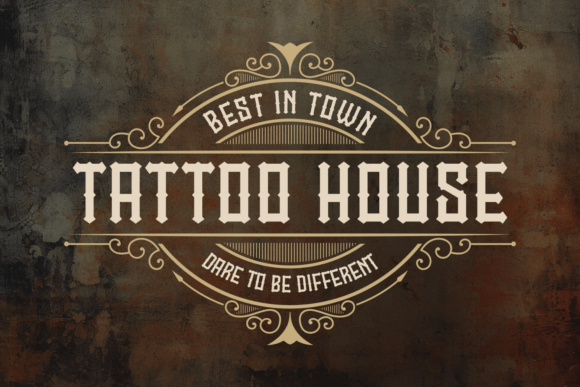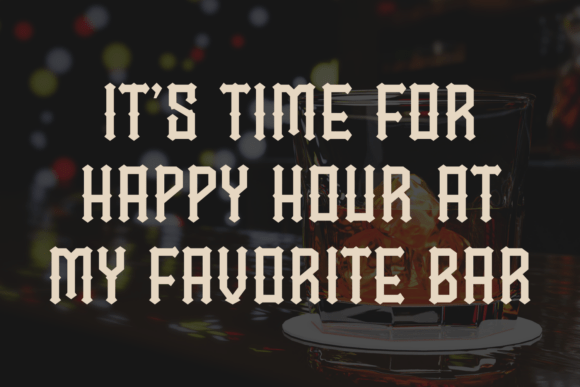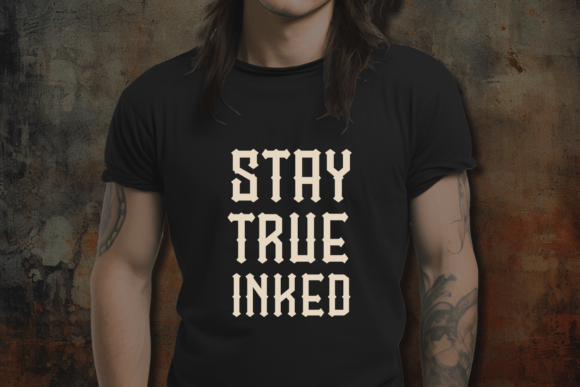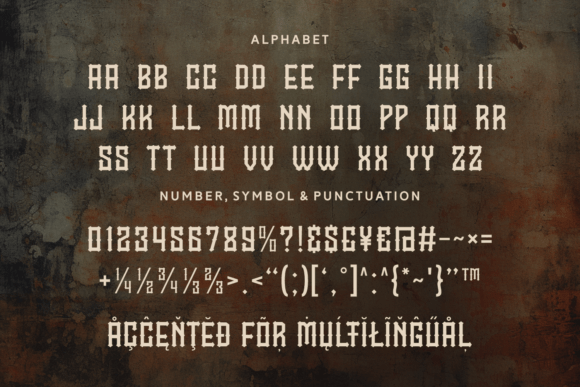
Unleash the Power of Barfun Font: A Bold and Edgy Blackletter Typeface
Are you looking for a font that exudes a sense of rebellion, heritage, and rugged personality? Look no further than Barfun Font, a bold and angular blackletter typeface that combines traditional Gothic typography with a modern edge. In this article, we’ll dive into the world of Barfun Font, exploring its unique features, uses, and benefits for designers and crafters.
A Brief Introduction to Barfun Font
Barfun Font is a striking blackletter font that draws inspiration from traditional Gothic typography, but with a fresh and modern twist. Its rigid structure, pointed edges, and sharp geometric lines give it a commanding presence that’s perfect for making a statement. Whether you’re designing vintage labels, beer branding, tattoo designs, bar signage, or rock band merchandise, Barfun Font is the perfect choice for adding a touch of attitude and heritage to your work.
Key Features of Barfun Font
- Bold and Angular Design: Barfun Font boasts a bold and angular design that’s sure to grab attention. Its sharp lines and pointed edges give it a rugged and edgy feel that’s perfect for designs that require a strong personality.
- Traditional Gothic Inspiration: Barfun Font draws inspiration from traditional Gothic typography, but with a modern edge. This blend of old and new gives it a unique and distinctive look that’s both timeless and contemporary.
- Mix of Historical Flair and Attitude: Barfun Font combines historical flair with a punch of attitude, making it perfect for designs that require a sense of rebellion and heritage.
Uses of Barfun Font
Barfun Font is a versatile typeface that can be used in a variety of design projects, including:
- Vintage Labels: Add a touch of nostalgia and authenticity to your vintage labels with Barfun Font. Its bold and angular design makes it perfect for creating eye-catching labels that stand out.
- Beer Branding: Barfun Font is a great choice for beer branding, as it evokes a sense of tradition and heritage. Its rugged and edgy feel also makes it perfect for craft beer labels and packaging.
- Tattoo Designs: Barfun Font is a popular choice for tattoo designs, as its bold and angular lines make it perfect for creating striking and memorable tattoos.
- Bar Signage: Add a touch of personality to your bar signage with Barfun Font. Its commanding presence and rugged feel make it perfect for creating eye-catching signs that reflect the atmosphere of your bar.
- Rock Band Merchandise: Barfun Font is a great choice for rock band merchandise, as its bold and edgy design makes it perfect for creating striking and memorable merchandise that reflects the band’s personality.
Benefits of Using Barfun Font
So why choose Barfun Font for your design projects? Here are just a few benefits of using this versatile typeface:
- Strong and Authentic Personality: Barfun Font gives your designs a strong, authentic, and rugged personality that’s sure to grab attention.
- Timeless Feel: Barfun Font has a timeless feel that’s both classic and contemporary. Its blend of traditional Gothic typography and modern edge makes it perfect for designs that require a sense of heritage and rebellion.
- Versatility: Barfun Font is a versatile typeface that can be used in a variety of design projects, from vintage labels to rock band merchandise.
Tips for Using Barfun Font
Here are a few tips for getting the most out of Barfun Font:
- Use it for Headlines and Logos: Barfun Font is perfect for headlines and logos, as its bold and angular design makes it perfect for creating eye-catching and memorable typography.
- Experiment with Colors and Textures: Barfun Font looks great in a variety of colors and textures. Experiment with different combinations to find the one that works best for your design.
- Pair it with Other Fonts: Barfun Font can be paired with other fonts to create a unique and striking typography. Experiment with different combinations to find the one that works best for your design.
In conclusion, Barfun Font is a bold and edgy blackletter typeface that’s perfect for designers and crafters looking to add a touch of rebellion and heritage to their work. Its unique features, versatility, and timeless feel make it a great choice for a variety of design projects, from vintage labels to rock band merchandise. Whether you’re looking to create striking headlines, logos, or packaging, Barfun Font is the perfect choice for adding a strong, authentic, and rugged personality to your designs.